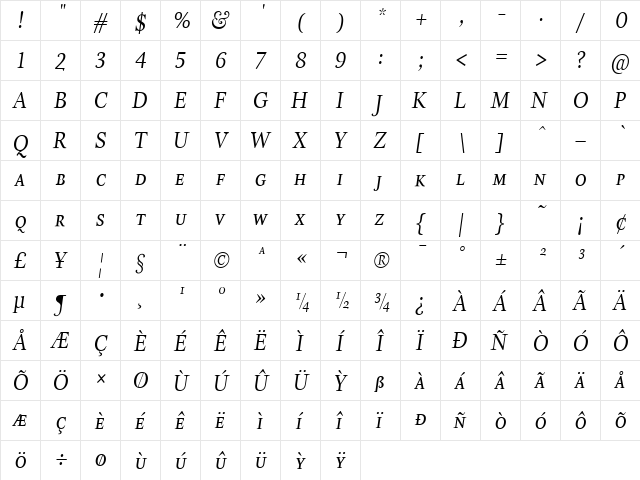
EstaSmallCapsItalic Regular
Design Context for EstaSmallCapsItalic Typeface
EstaSmallCapsItalic is a composed and adaptable typeface that performs quietly and consistently across a wide range of design contexts. The dynamic lean of this cut emphasises speed and emphasis in any layout.